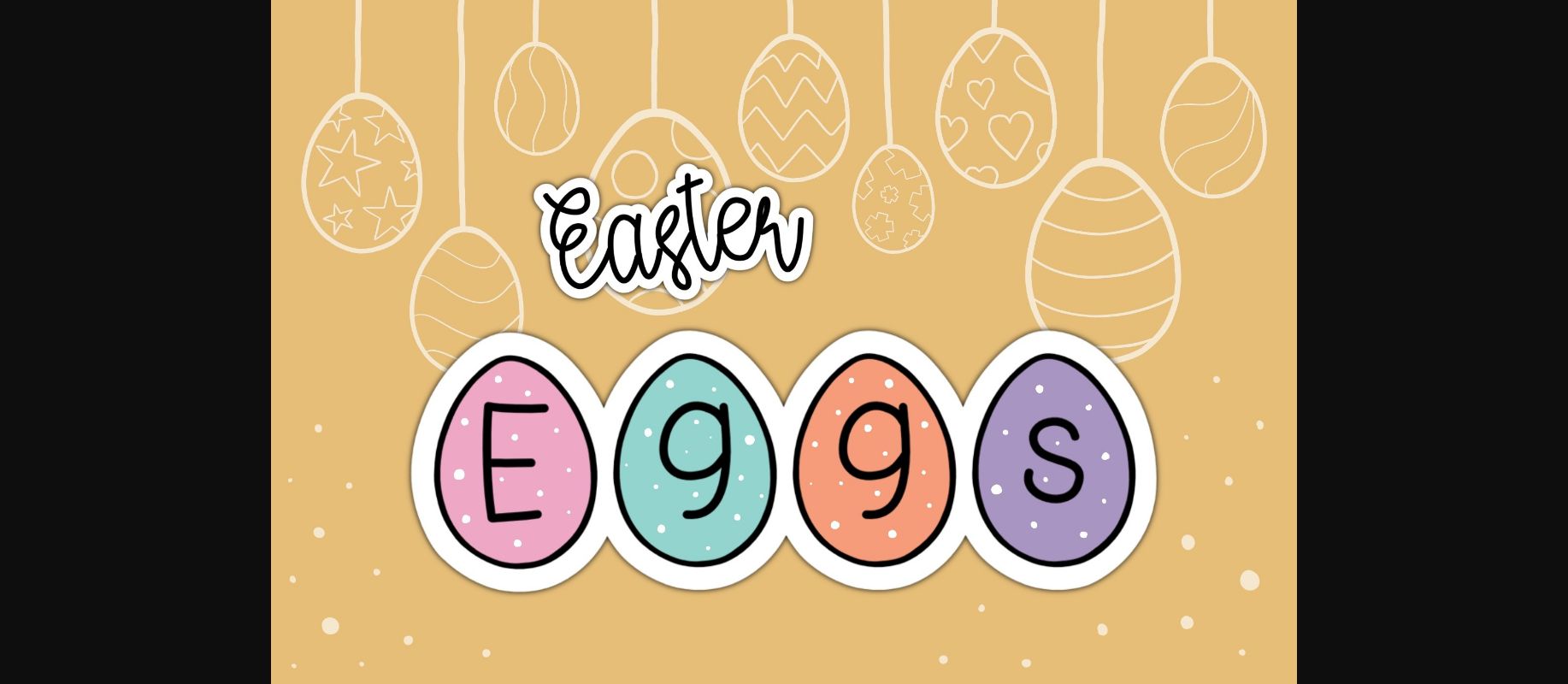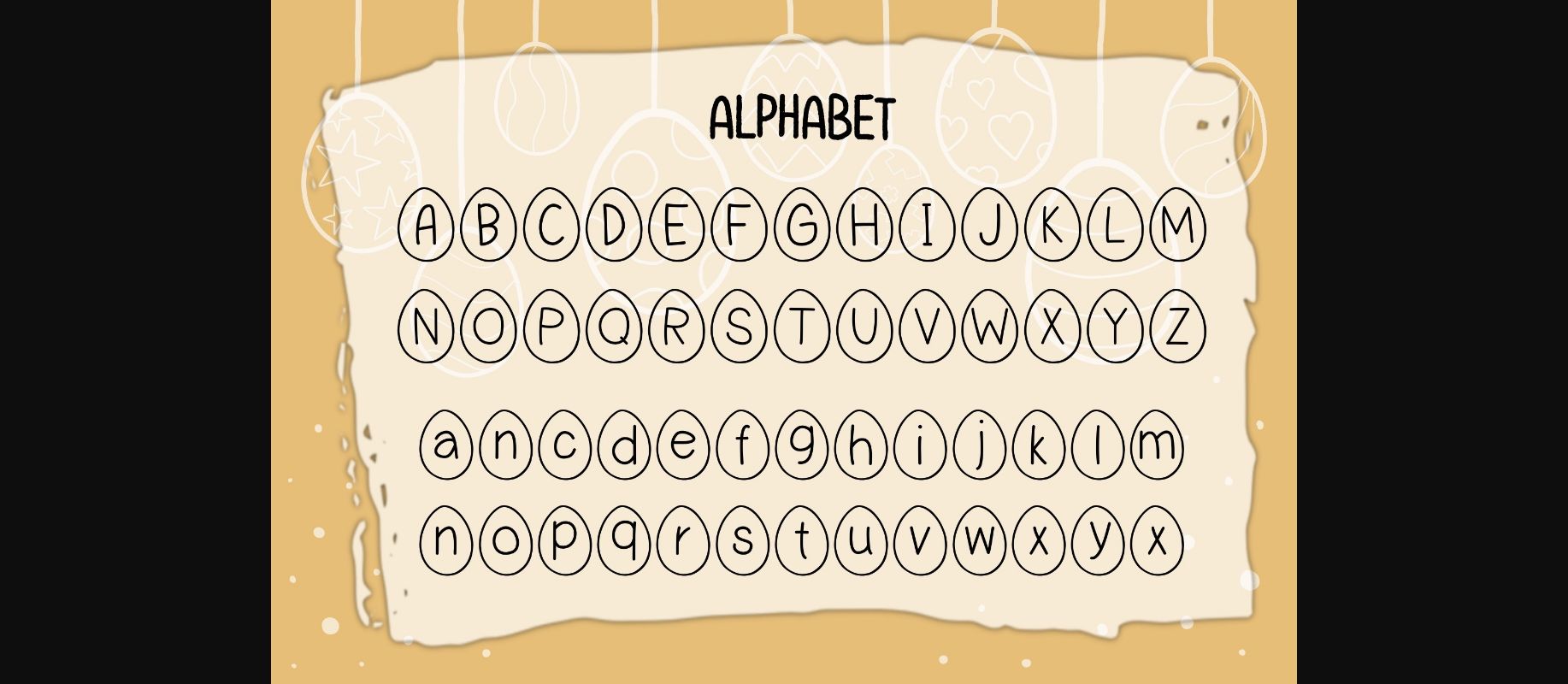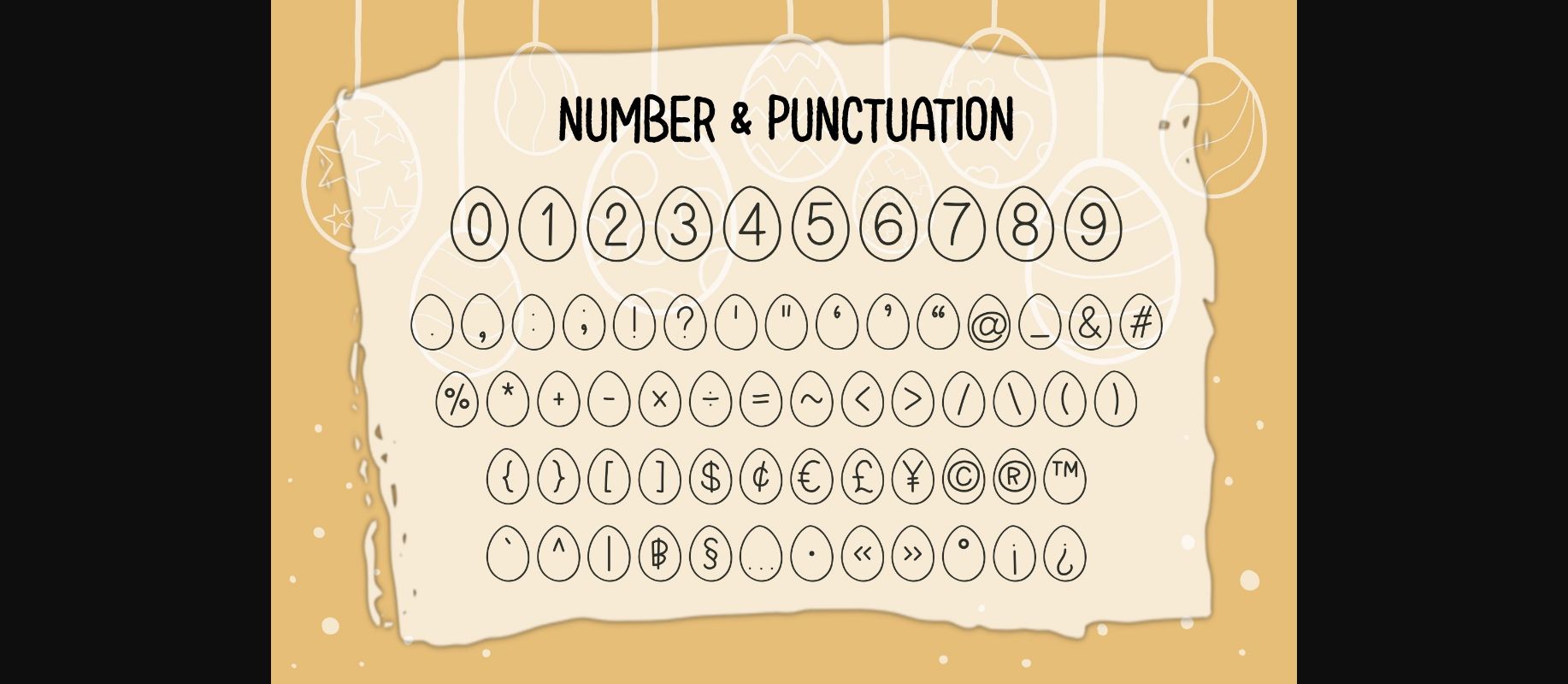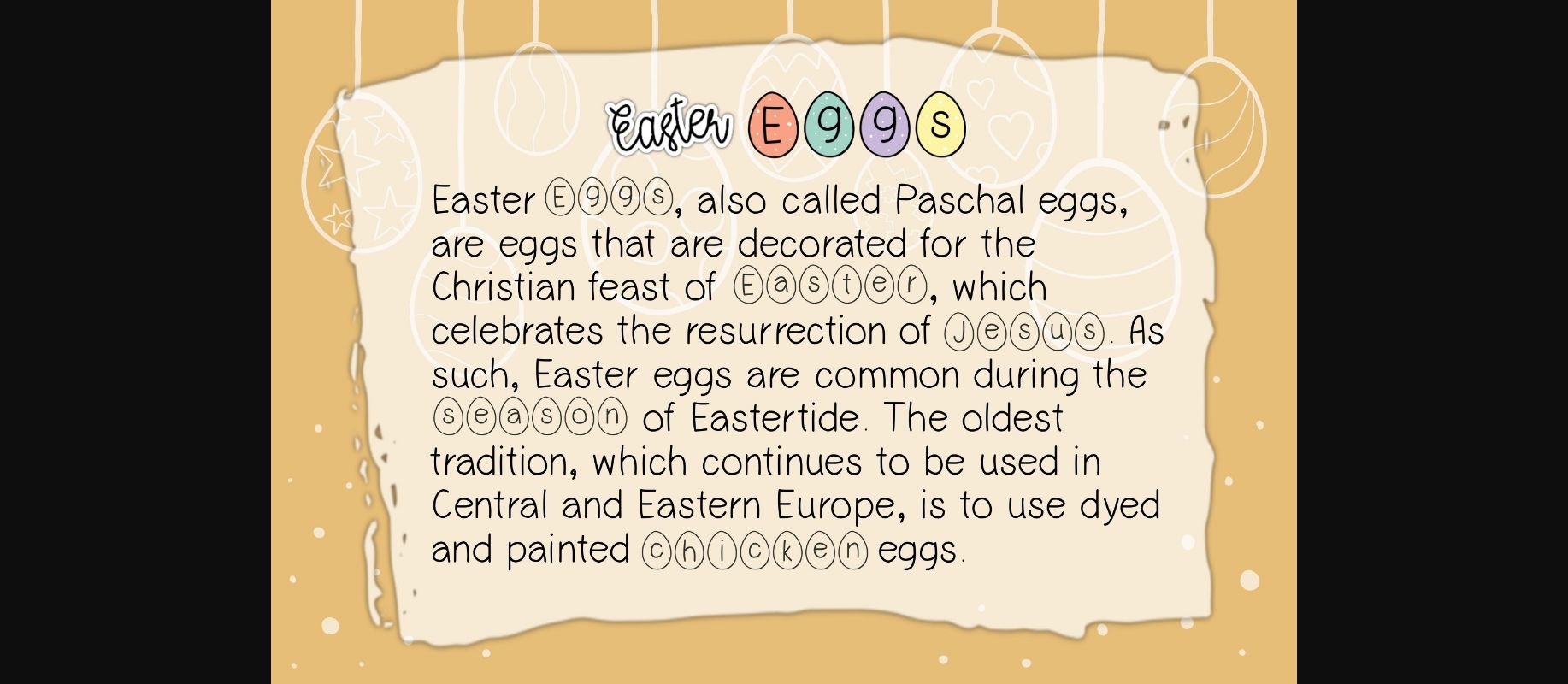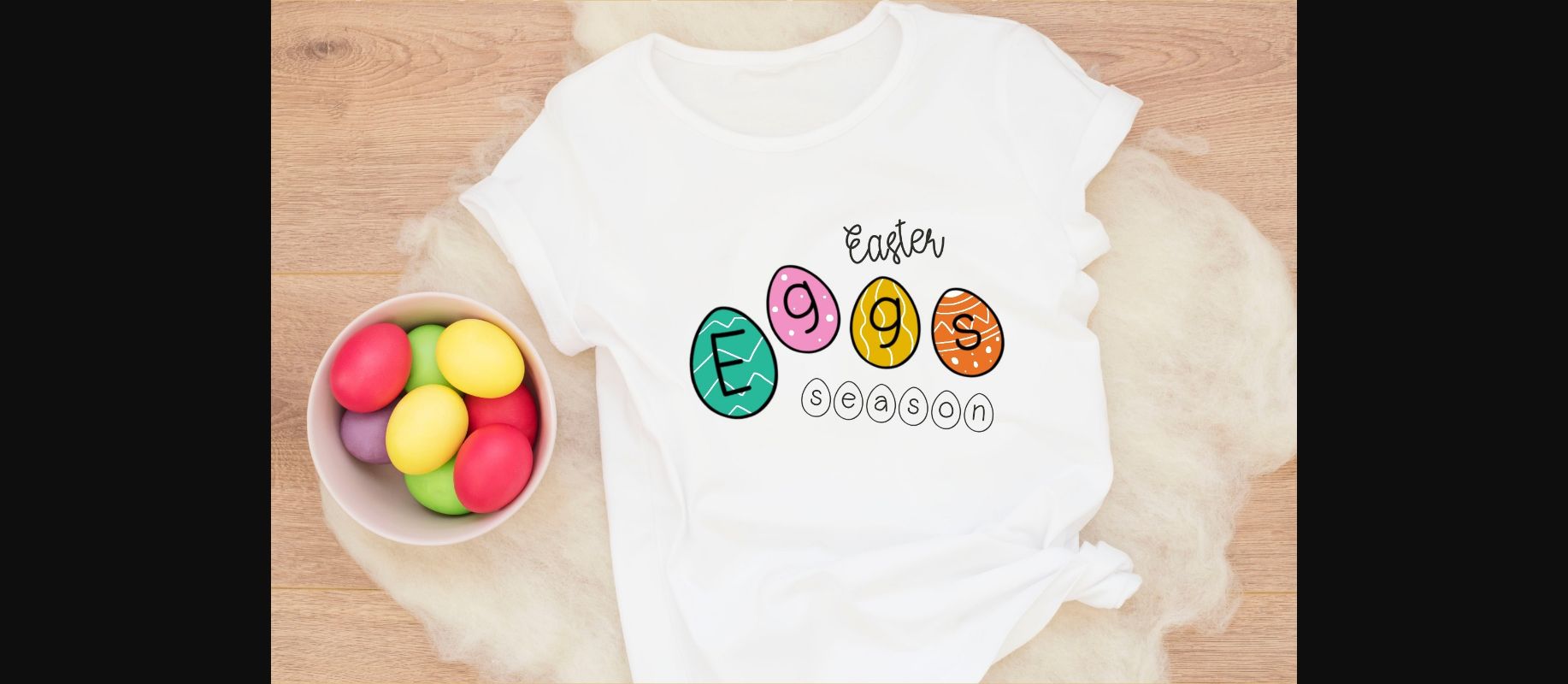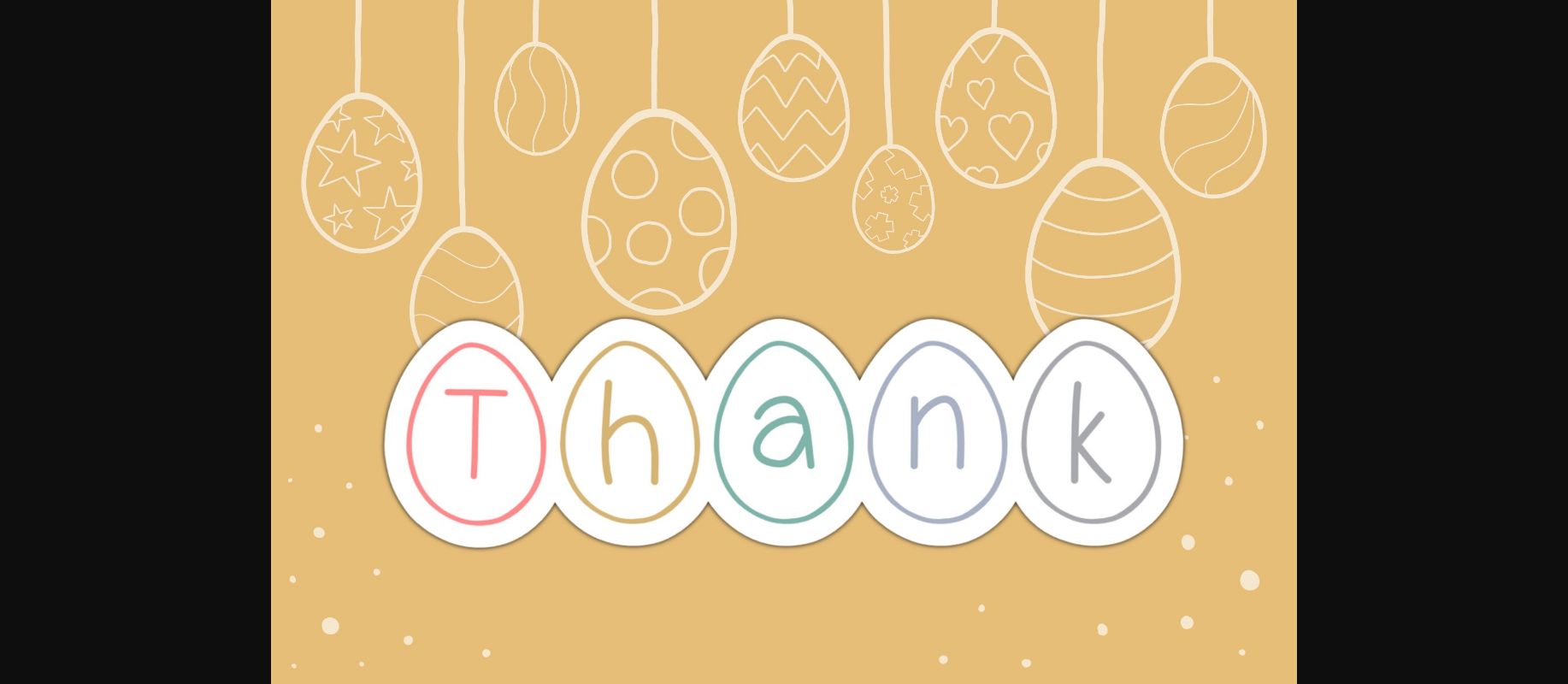
HomeDecorative FontsEaster Eggs Font Decorative Fonts Easter Eggs Font FacebookXPinterestWhatsApp 1 of 8 ... Easter Eggs Font Poster 2... Easter Eggs Font Poster 3... Easter Eggs Font Poster 4... Easter Eggs Font Poster 5... Easter Eggs Font Poster 6... Easter Eggs Font Poster 7... Easter Eggs Font Poster 8... About Easter Eggs Font Easter Eggs is a clean and clear decorative font. Thin letters in the shape of an egg. This font is the perfect fit for all of your logos, branding, social media, crafty DIY projects, and much more! DOWNLOAD NOW People also explored Panhenlis Font Filogofil Font Love Vintage Font Dot Grid Font Figaro Font Francisse Font Kayla Katrina Font Amigdala Font Hanara Font 413 0 TagsEaster Eggs Font Previous articleSpring Drops FontNext articleKamille Monogram Font LEAVE A REPLY Cancel reply Comment: Please enter your comment! Name:* Please enter your name here Email:* You have entered an incorrect email address! Please enter your email address here Website: Save my name, email, and website in this browser for the next time I comment. Personal Use Free Goodline Font Personal Use Free Read more about this font Hallo Betty Personal Use Free Read more about this font Hanberra Personal Use Free Read more about this font Lovetle Personal Use Free Read more about this font BLOG Free vs Paid Fonts: Why Investing in Premium Fonts Is Worth It Free vs Paid Fonts: Why Premium Fonts Are Worth It in 2025 The debate of free vs paid fonts continues in the design world. While... Best Fonts for T-Shirt Design – Top 2025 Picks Top 7 Google Fonts Alternatives for Faster and Privacy-Friendly Web Design (2025) 5 Fonts That Will Dominate Design Trends in 2026